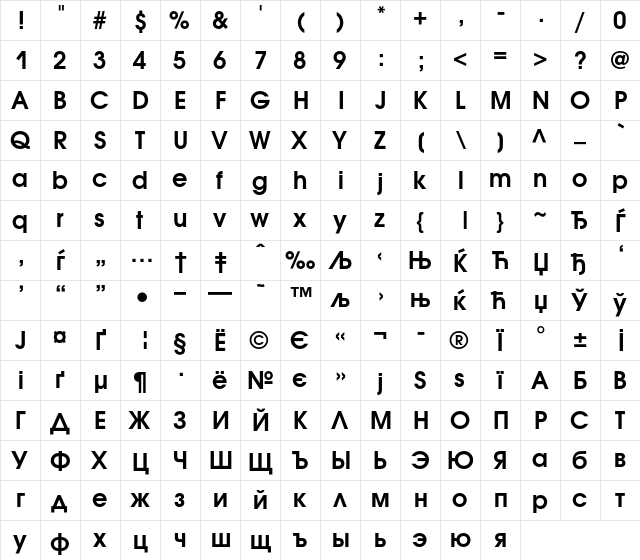
AvantGardeGothicC Regular
Design Context for AvantGardeGothicC Typeface
AvantGardeGothicC has the quiet confidence of well-executed sans-serif typography: versatile, unobtrusive, and dependable at any size.
Font Pairing: Works well alongside a characterful serif or display font that can carry the expressive load while AvantGardeGothicC handles the functional copy.
Pro Tip: Use AvantGardeGothicC for UI labels, navigation, and short-form body copy where clean legibility is the priority.